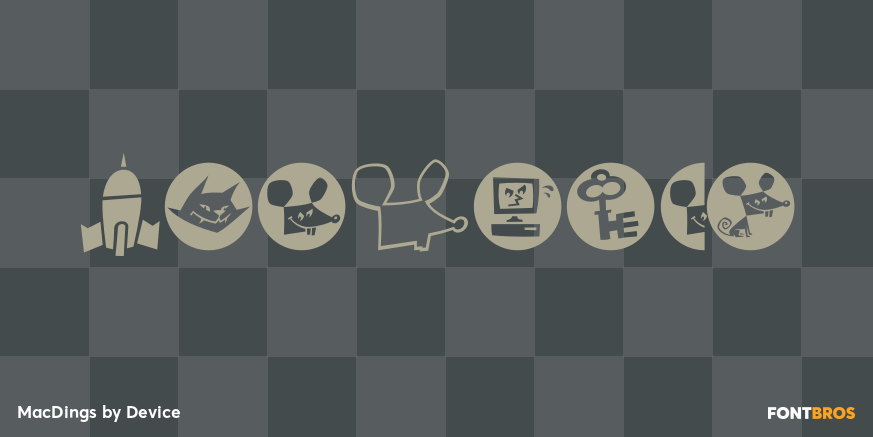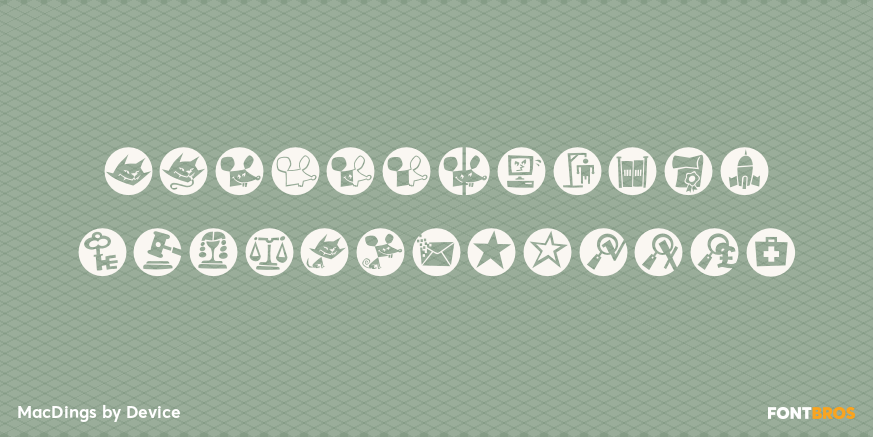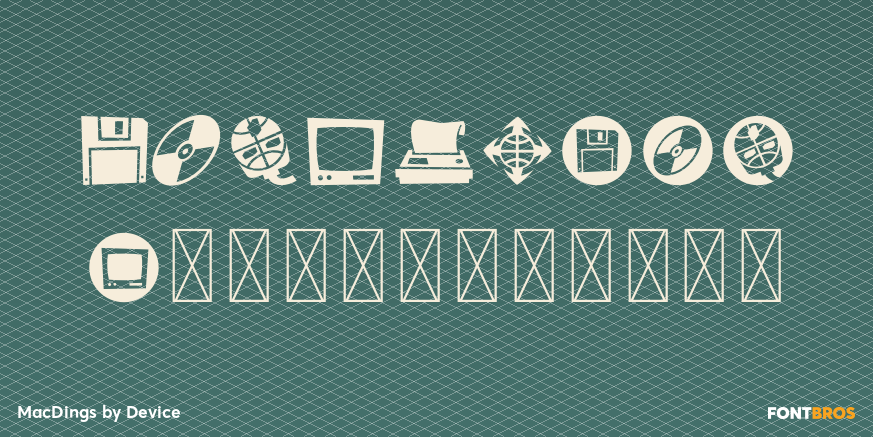
MacDings
Font Family by Device
With 1 font style and 82 glyphs, this collection is a handy choice when you want icons, non-alphabetic marks, and vector-like symbols to do the talking. Use it to add character to posters, social graphics, interface-inspired artwork, packaging accents, or any display project that could use a quirky set of visual cues instead of standard lettering.
Designed by Device, this icon font brings a fun, offbeat voice to layouts that lean playful, techy, or intentionally vintage.